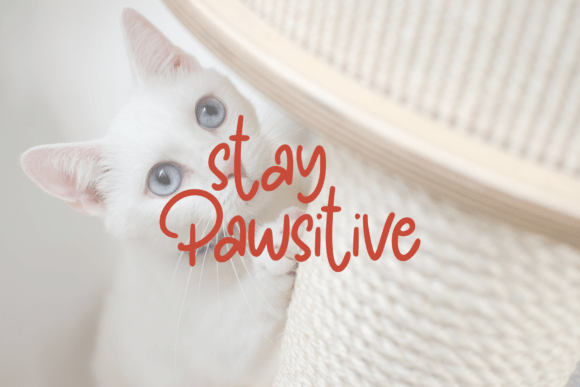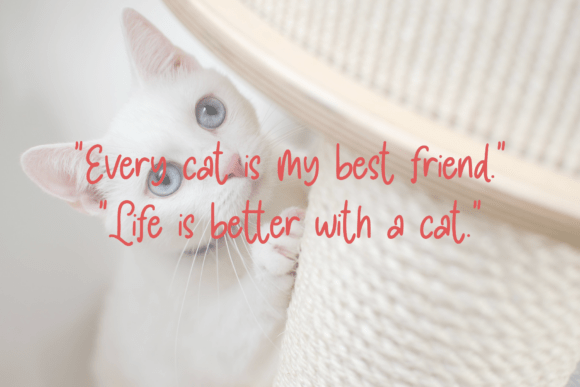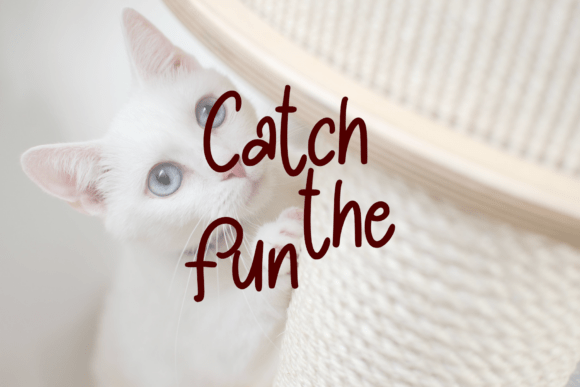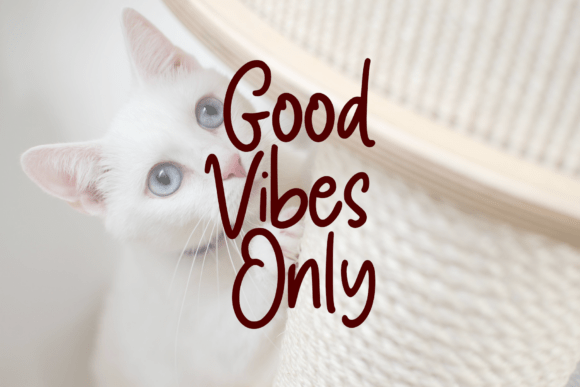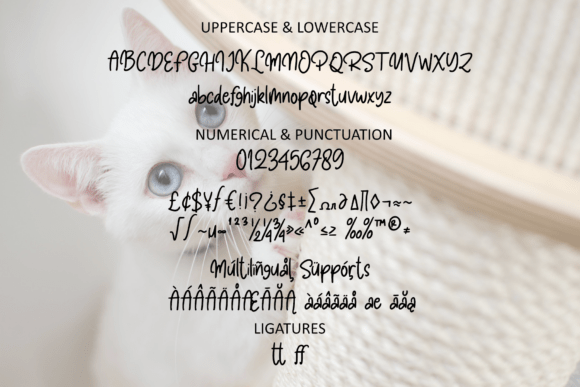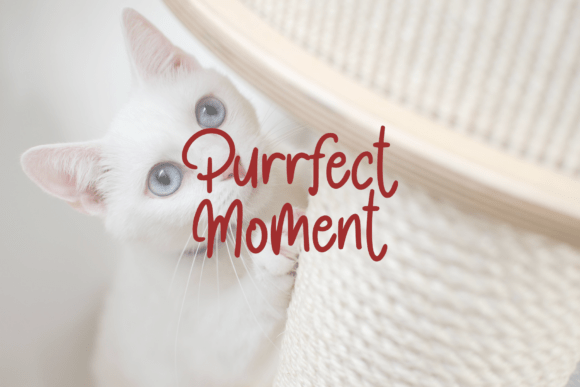
Introduction to Pawty Tales Handwritten Font
Pawty Tales Handwritten is a delightful and playful handwritten display font, perfect for bringing a touch of fun and whimsy to your designs.
With its charming, quirky letterforms, this font is ideal for creating joyful, lighthearted projects, from party invitations to playful branding, greeting cards, and beyond The unique strokes and bouncy curves of Pawty Tales evoke the carefree spirit of a handwritten note, adding personality and warmth to any design.
Key Features of Pawty Tales Handwritten Font
Why Choose Pawty Tales Handwritten Font?